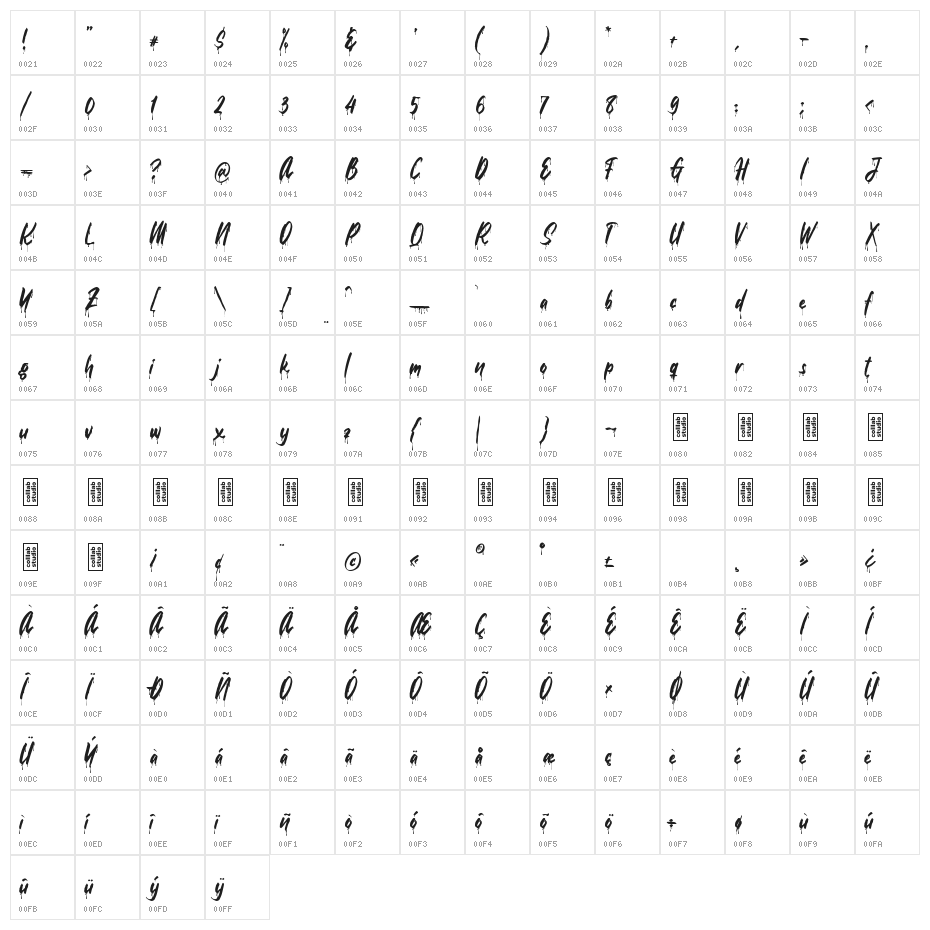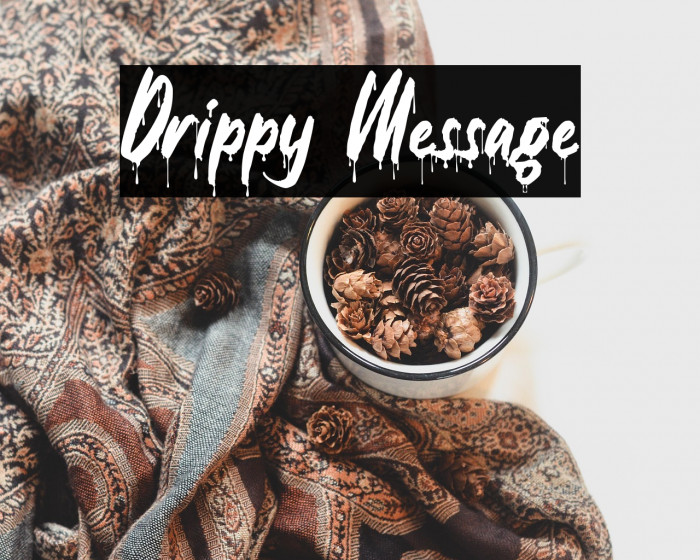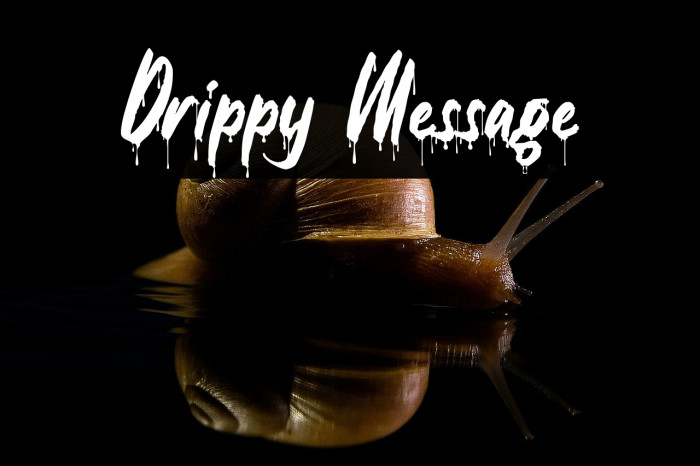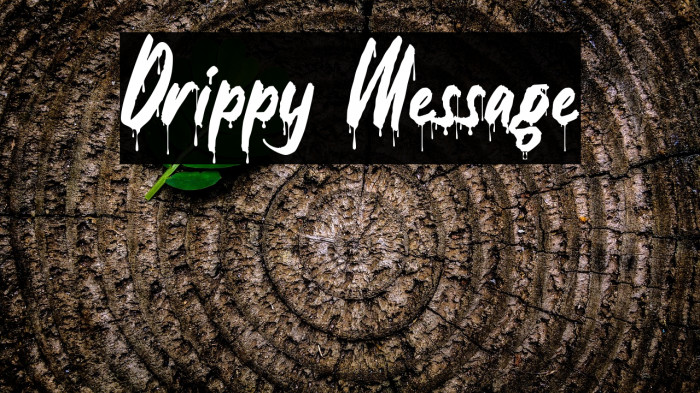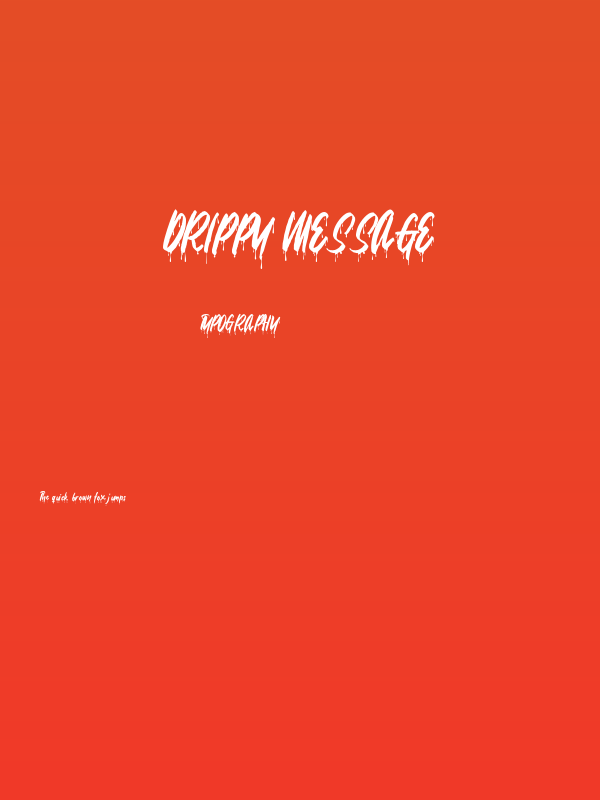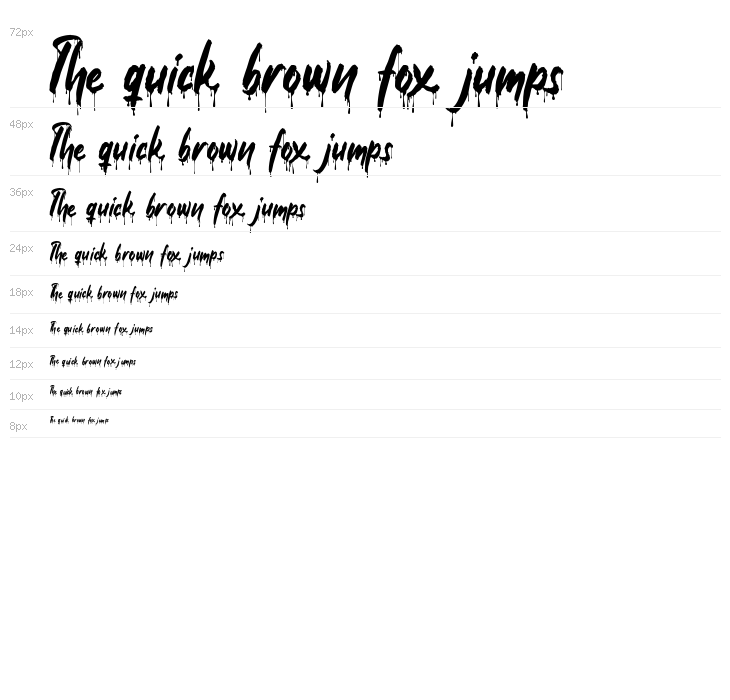
Drippy Message Font
Drippy Message Description
This font features a unique, dripping effect that gives each character a dynamic and edgy appearance. The uppercase and lowercase letters, as well as numbers and special characters, all exhibit this distinctive style, reminiscent of wet paint or ink. The strokes are bold and fluid, creating a sense of movement and energy. This design is perfect for projects that require a bold statement or a touch of rebelliousness. The font's artistic flair makes it suitable for creative and unconventional uses.
| Use Case | Headlines, Posters, Logos |
| Proposed Projects | Ideal for album covers, street art-inspired designs, Halloween themes, and edgy branding projects. |